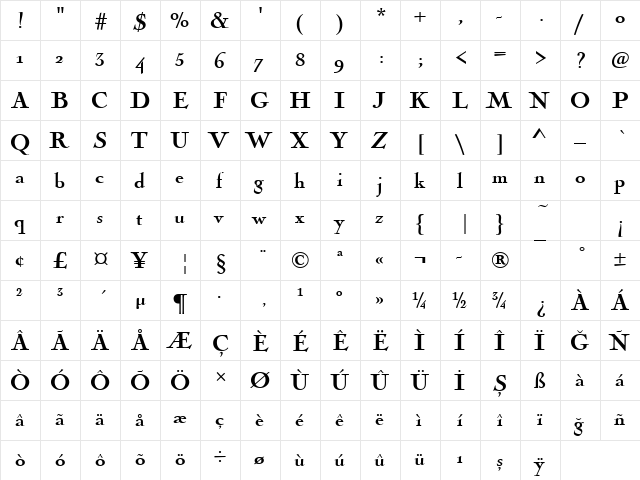
00938 Regular
00938 takes a measured approach to typography — its balanced proportions and neutral character make it a reliable workhorse for both digital and print work.